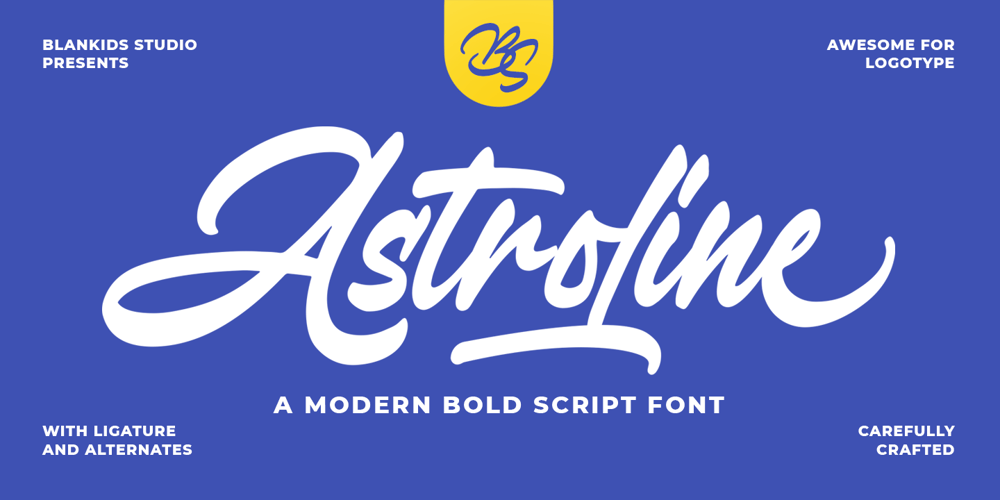
Astroline Font Family was designed by Bangkit Tri Setiadi and published by Blankids. Astroline contains 1 styles and family package options. Hello, awesome people! This time, we have a new font called Astroline a modern bold script font by Blankids Studio.Astroline, a modern bold script font is made for any professional project branding, such as logotype, comic, watermarks, poster, branding, promotions, product packaging, etc. Every letter has a modern clean script style design. This font comes in regular style.Astroline font includes a full set of modern clean script uppercase and lowercase letters, numerals and punctuation. This font has a modern script style. See the previews above to get some inspiration on how to use them. Happy designing!The font support has an OpenType feature that can be opened by various graphic software programs, such as Canva, Adobe Illustrator, Adobe Photoshop, Adobe InDesign, and Corel Draw.Support Language:Afrikaans, Albanian, Asu, Basque, Bemba, Bena, Breton, Catalan, Chiga, Cornish, Danish, Dutch, English, Faroese, Filipino, Friulian, Galician, German, Gusii, Indonesian, Irish, Italian, Kabuverdianu, Kalenjin, Kinyarwanda, Luo, Luxembourgish, Luyia, Machame, Makhuwa-Meetto, Makonde, Malagasy, Manx, Morisyen, North Ndebele, Norwegian Bokmål, Norwegian Nynorsk, Nyankole, Oromo, Portuguese, Quechua, Romansh, Rombo, Rundi, Rwa, Samburu, Sango, Sangu, Scottish Gaelic, Sena, Shambala, Shona, Soga, Somali, Spanish, Swahili, Swedish, Swiss German, Taita, Teso, Uzbek (Latin), Vunjo, Zulu